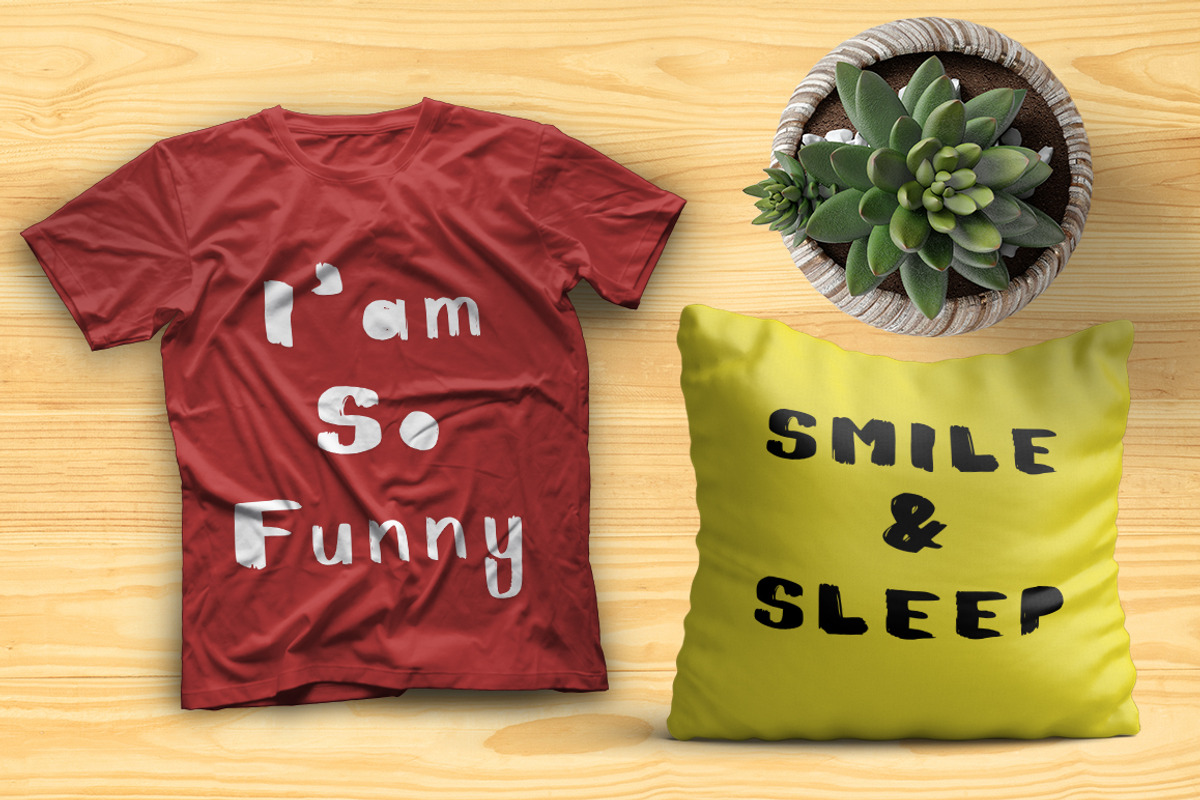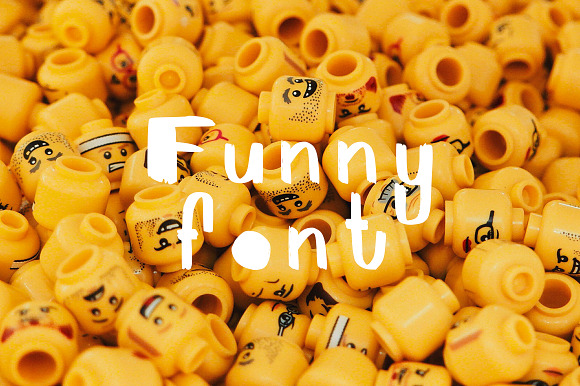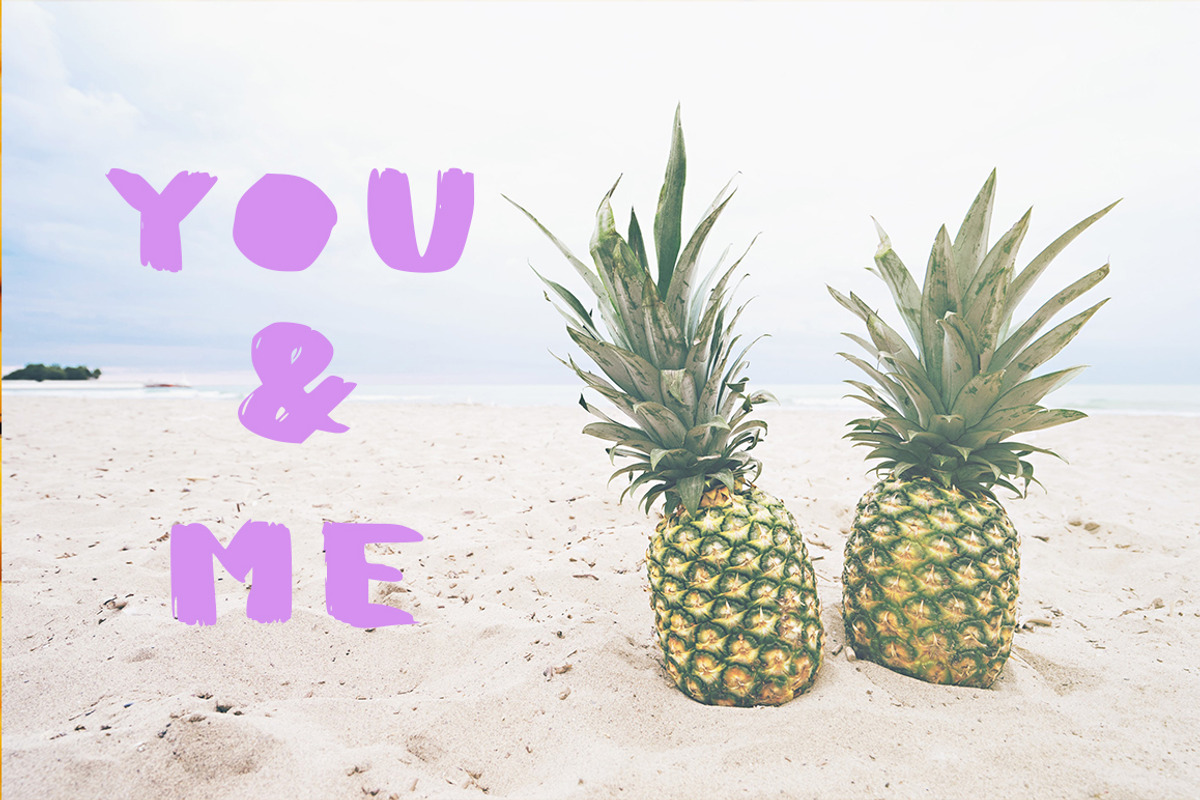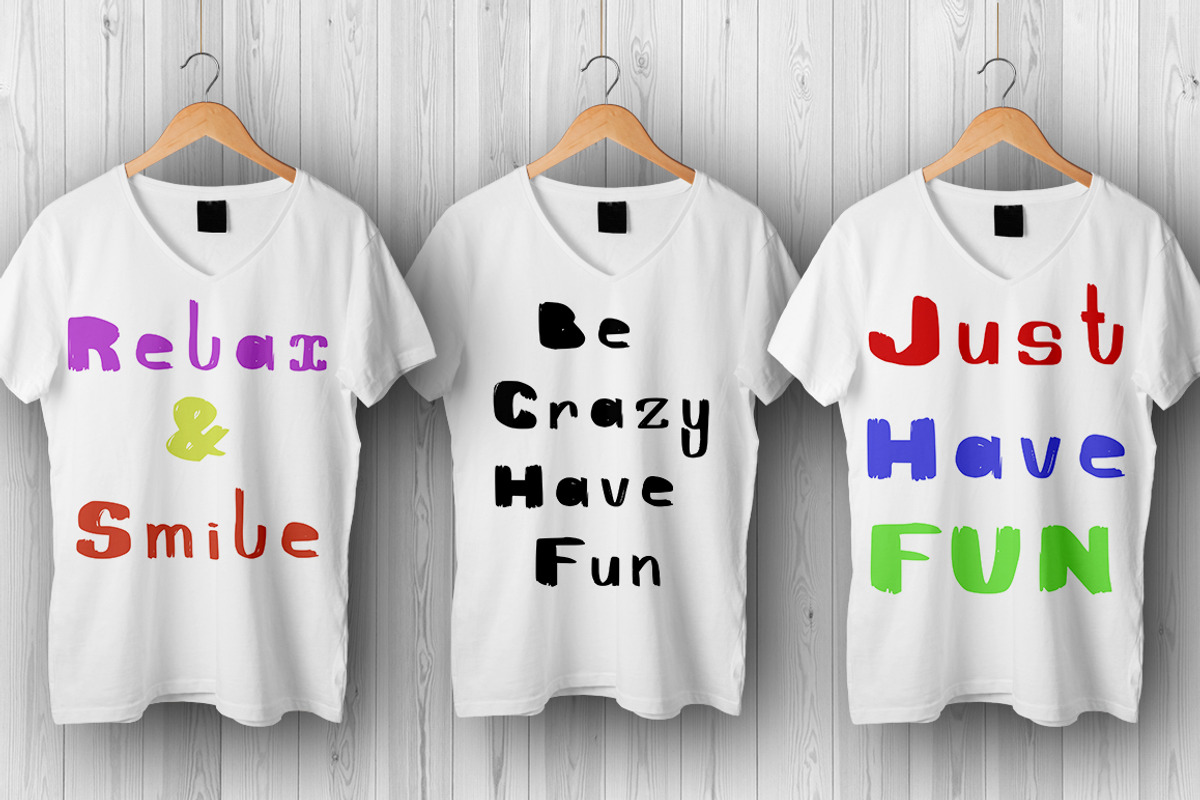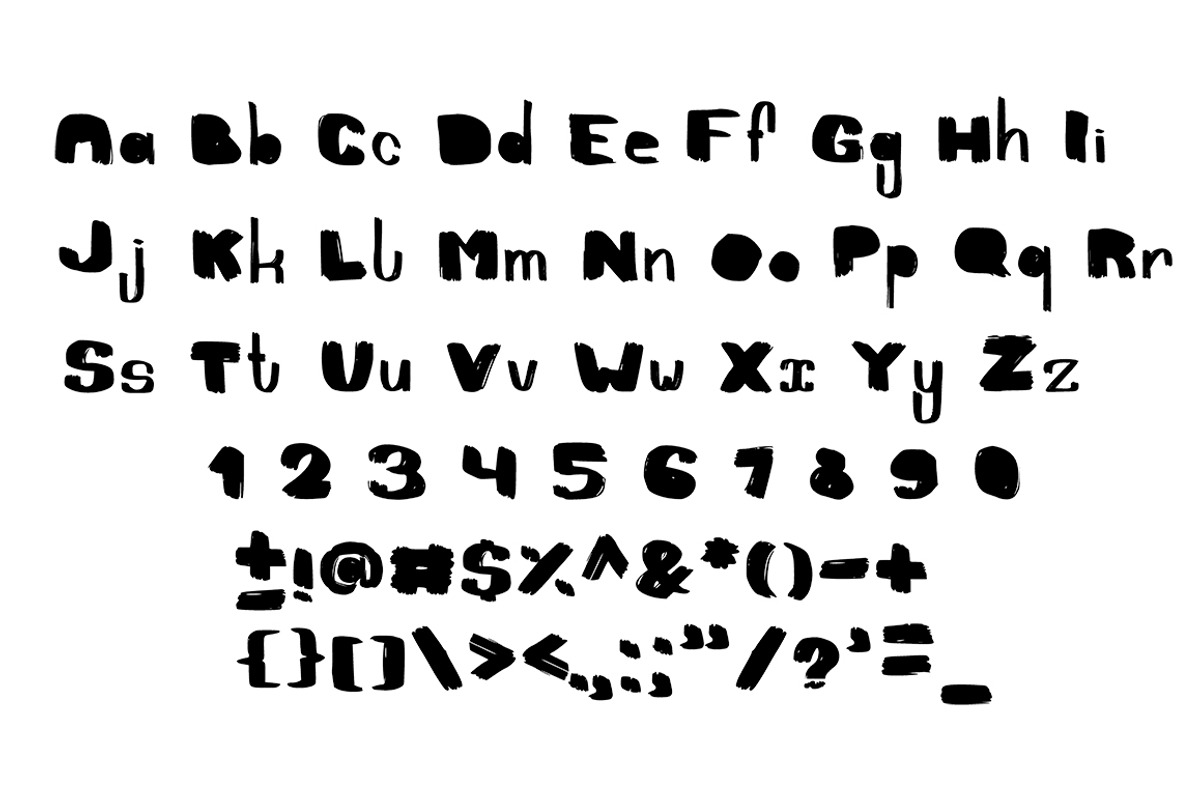
FunnyFont | Brush Font
Presenting: FunnyFont! Font brush with natural flow. FunnyFont is not limited to any boundaries or expectations. It is an ideal choice for personal branding projects, handwritten quotes, design for home, product packaging or simply as a modern and stylish text overlay on any background image.
FunnyFont Script handwriting input, font size, all letters, numbers and a wide range of punctuation marks.
FunnyFont | Brush Font by Gennadi Digital Studio fits naturally into Branding, posters, packaging, typography.